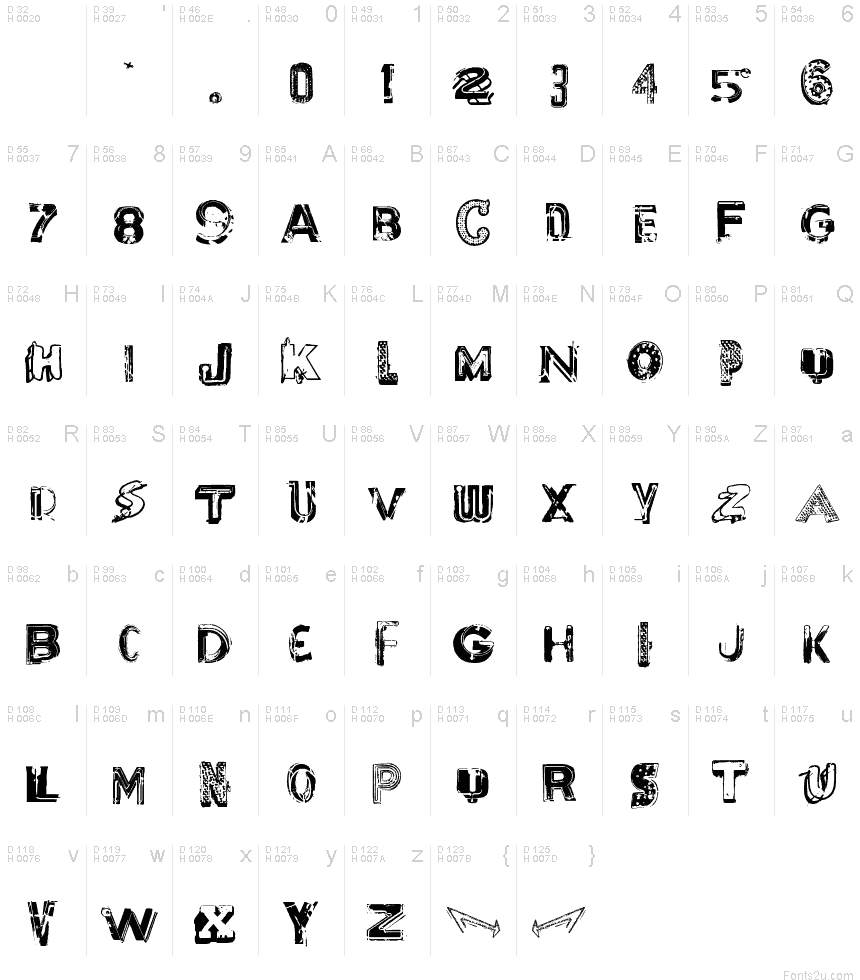
Motel Vacancy by Imagex is a free mixed-style display font with the restless look of assembled signage. Every letter takes a different route. Solid, outlined, striped, spotted, and scuffed forms create a deliberately mismatched alphabet.
It can give music posters the rough immediacy of pasted street graphics, yet its playful variety also suits youth-oriented packaging and merchandise. Festival promotions and magazine covers can use the changing patterns as part of their illustration rather than as neutral type.